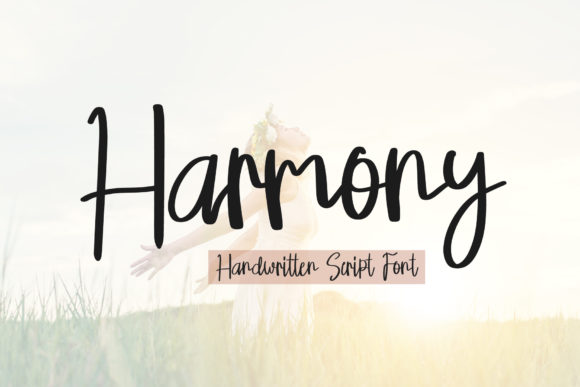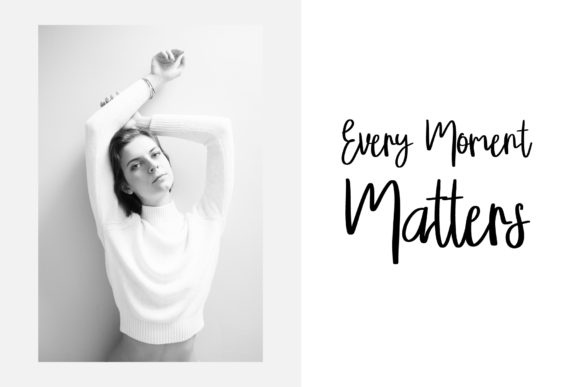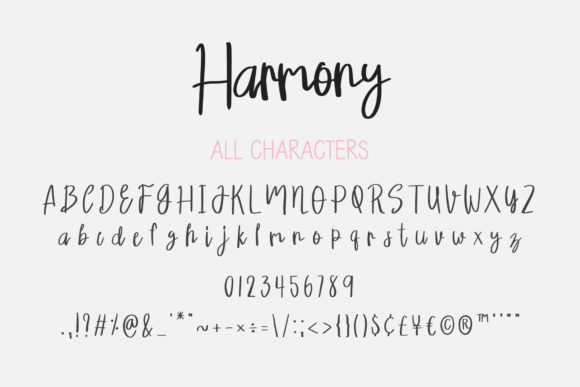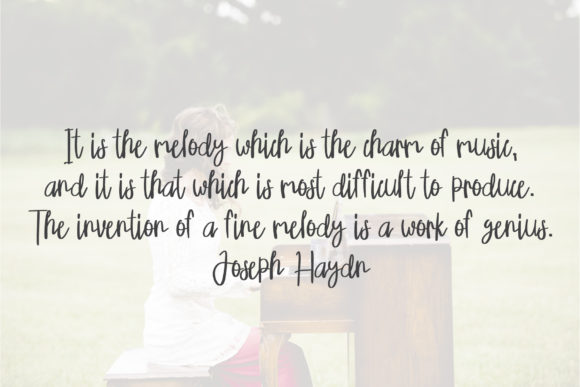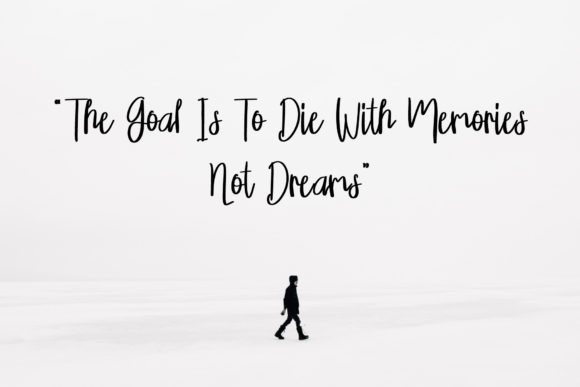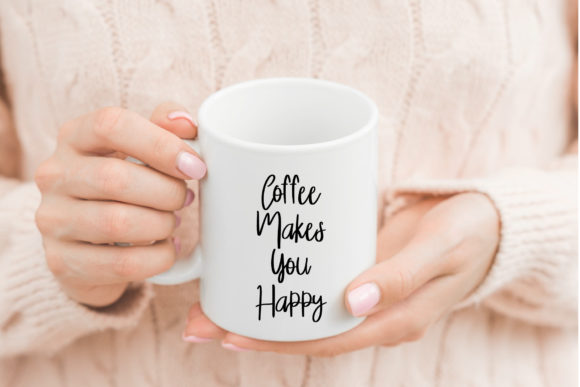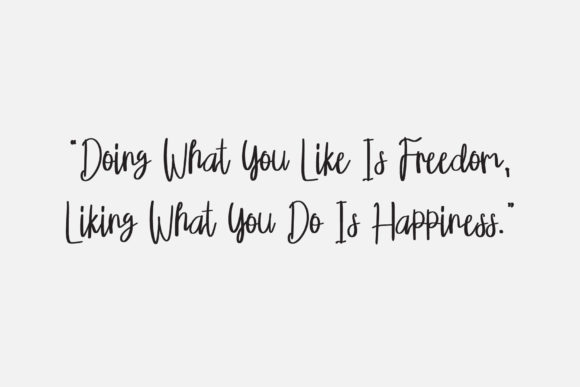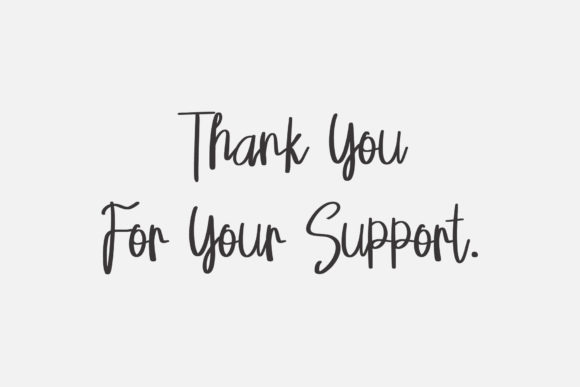
Harmony Font
About Harmony Font
Harmony is a beautiful and relaxed handwritten font with a modern and elegant feel. It can be used for logos, branding, invitations, cards, wedding card, social media posts, and so much more.